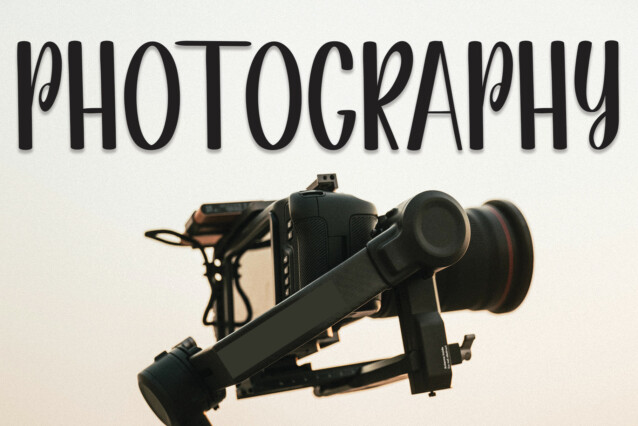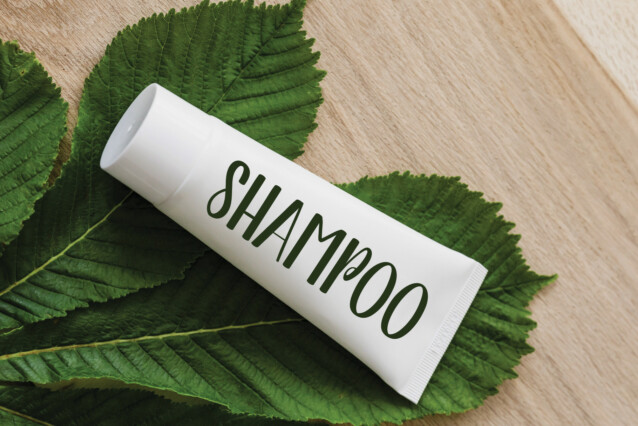
Crazy Rich Display Font
Crazy Rich Display Font is a fun and friendly handwritten font. Add it confidently to your projects and you will love the results!